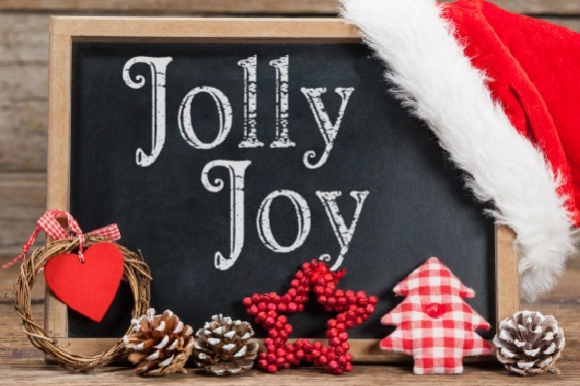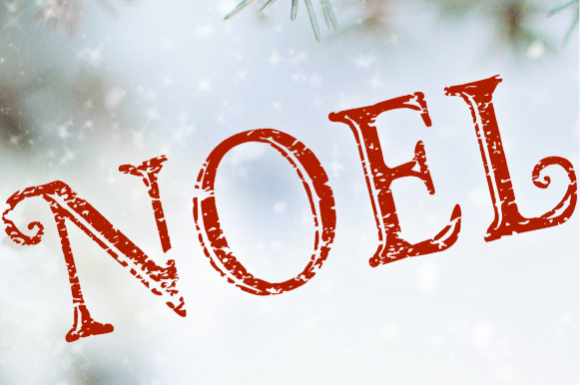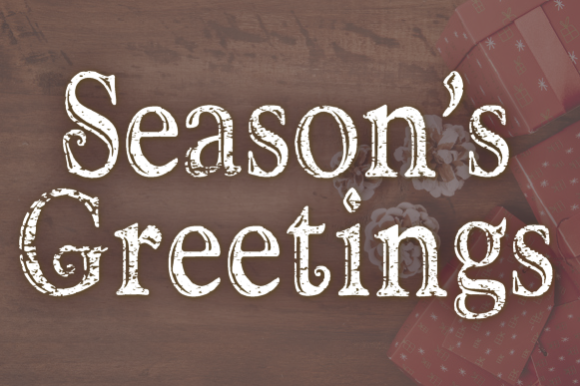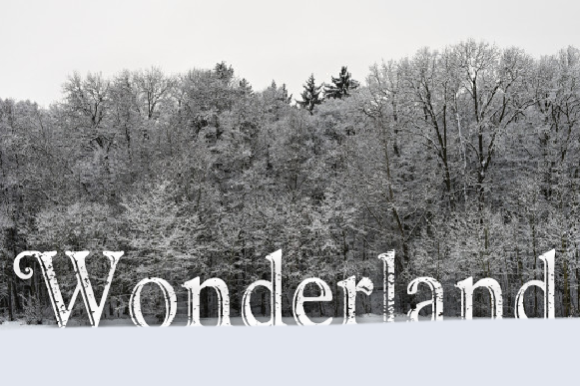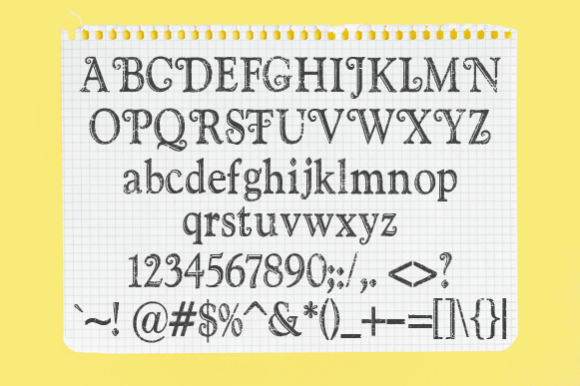
Jolly Joy Font
Dress up your handmade holiday greeting cards, newsletters, programs, letters to Santa Claus, and party invitations with this vintage style font. It gives an old world feel to your holiday creations.
Due to the vintage distressed style  of the letter, this font may not print clearly on paper with Inkjet and/or laser printers.